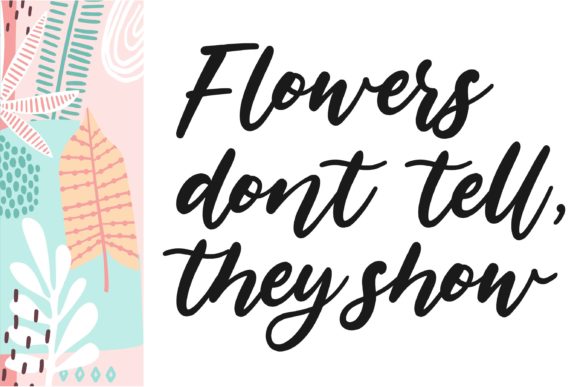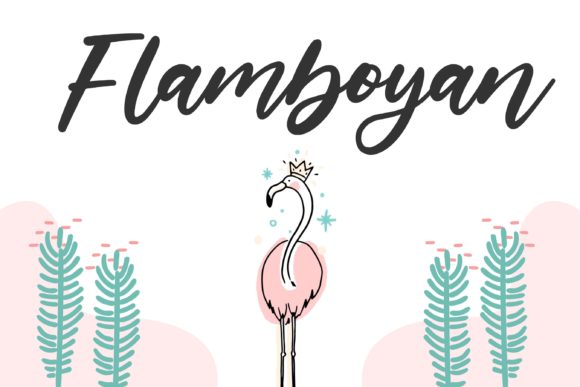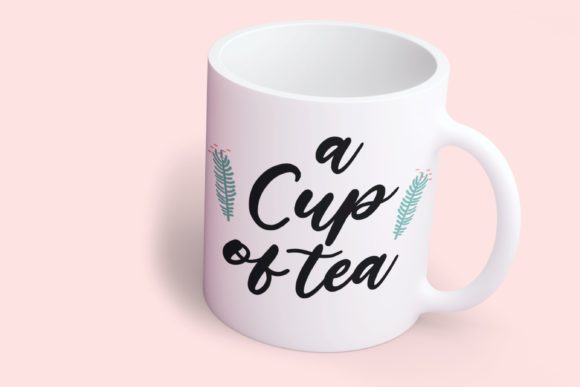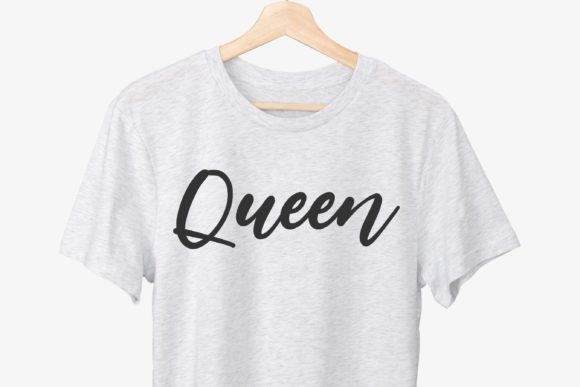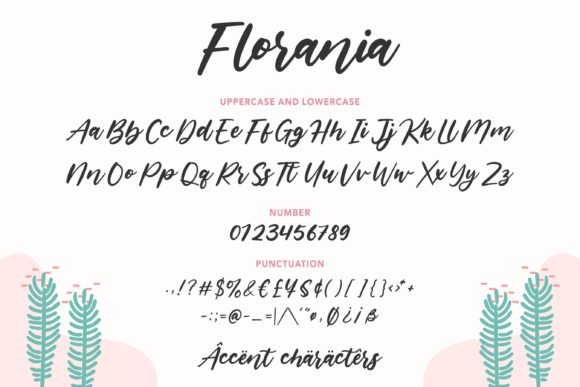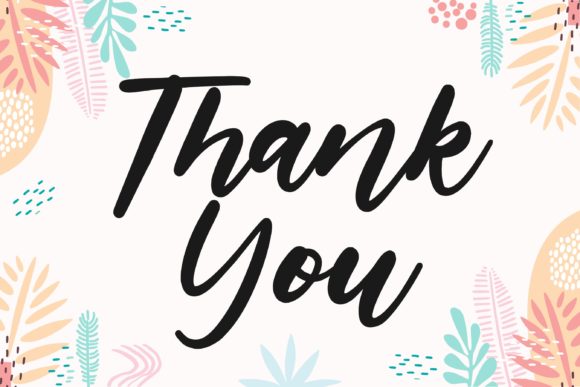
The Perfect Blend of Classic and Modern: Discover Florania Font
Have you ever found yourself scrolling through a beautiful design project, and suddenly, a specific font catches your eye? Maybe it’s the way the letters dance across the page or the way they seem to whisper your message to the audience. That’s exactly what happened to me when I stumbled upon the Florania Font. Its unique blend of classic typography and modern flair immediately sparked my creativity, and I knew I had to dive deeper.
| 👤 Author | Balpirick |
Florania Font is a beautifully crafted handwritten font designed to elevate any design project. With its versatility and adaptability, it’s perfect for creating stunning headlines, as well as blocks of text that require maximum and minimum variations. Whether you’re working on a web, print, or moving image project, Florania Font will undoubtedly bring a touch of sophistication and elegance to your design.
Florania Font Key Features
- Font Family: Florania Font is a beautiful, elegant script font, ideal for various applications such as invitations, wedding stationery, and more.
- Unique Characteristics: Features intricate, floral designs and ornate details, giving it a luxurious and sophisticated look.
Florania Font Review
As a designer, I’ve had the chance to work with the Florania Font, and I must say it’s a mixed bag. On the plus side, I appreciate the font’s ✨ elegant and sophisticated feel, perfect for luxury branding and high-end designs. The font’s script-like features add a touch of elegance and refinement, making it ideal for invitations, wedding designs, and other special occasion materials.
Another thing I like about Florania is its ✨ versatility. It comes in a range of weights and styles, allowing designers to experiment with different looks and feels. The font also supports a wide range of languages, making it a great choice for international designs.
However, I do have some concerns with Florania. ⚠️ For one, the font can be quite pricey, especially if you’re a solo designer or startup on a budget. Additionally, some users have reported issues with the font’s ⚠️ kerning, which can lead to uneven spacing and awkward-looking text.
Overall, I’d say Florania is a solid choice for designers looking for a high-end font, but it’s not without its limitations. If you’re willing to invest in the font and have the technical expertise to work with it, Florania can be a great addition to your design arsenal.
- Elegant and sophisticated feel
- Versatile with multiple weights and styles
- Supports multiple languages
- Kerning issues reported by some users
Tips for Getting the Most Out of Florania Font
Florania Font is perfect for creating elegant and sophisticated designs. To get the most out of it, use it for:
- Brand logos and marketing materials
- Editorial and publishing projects
Florania Font is commonly used for:
- Headings and titles
- Body text for formal documents
- Displaying quotes and excerpts